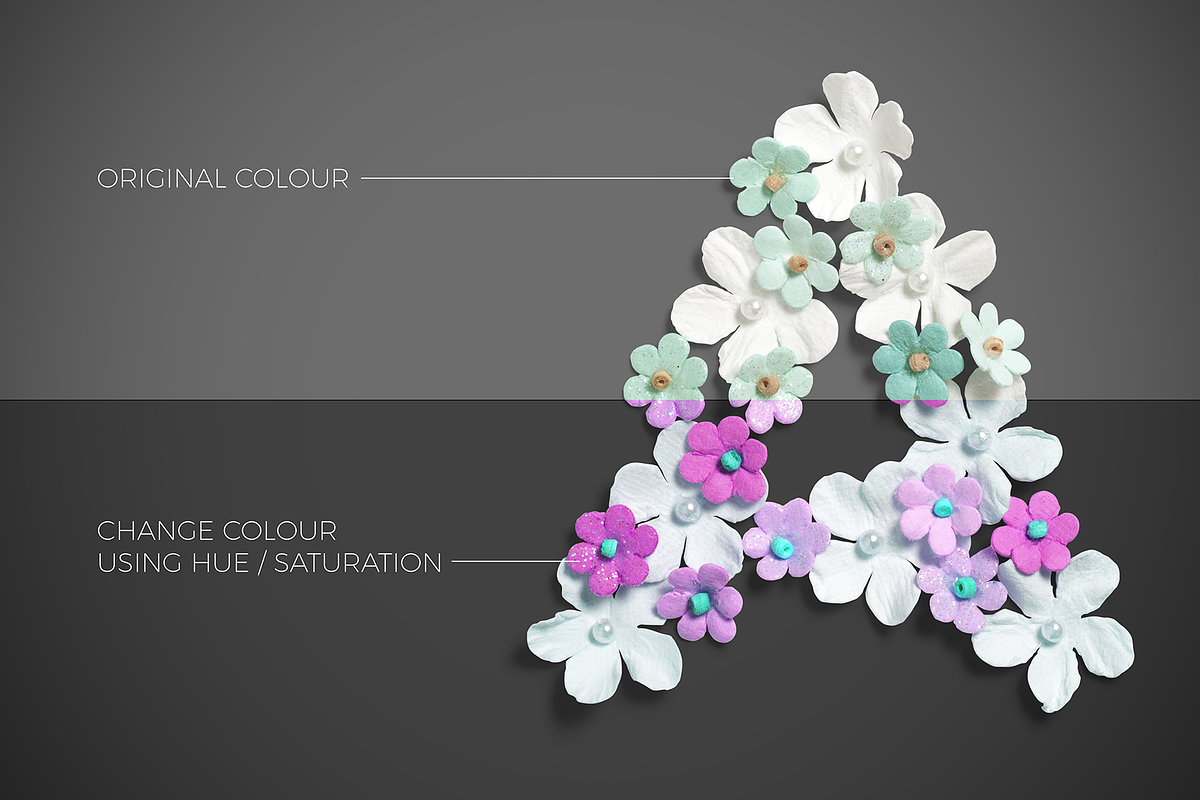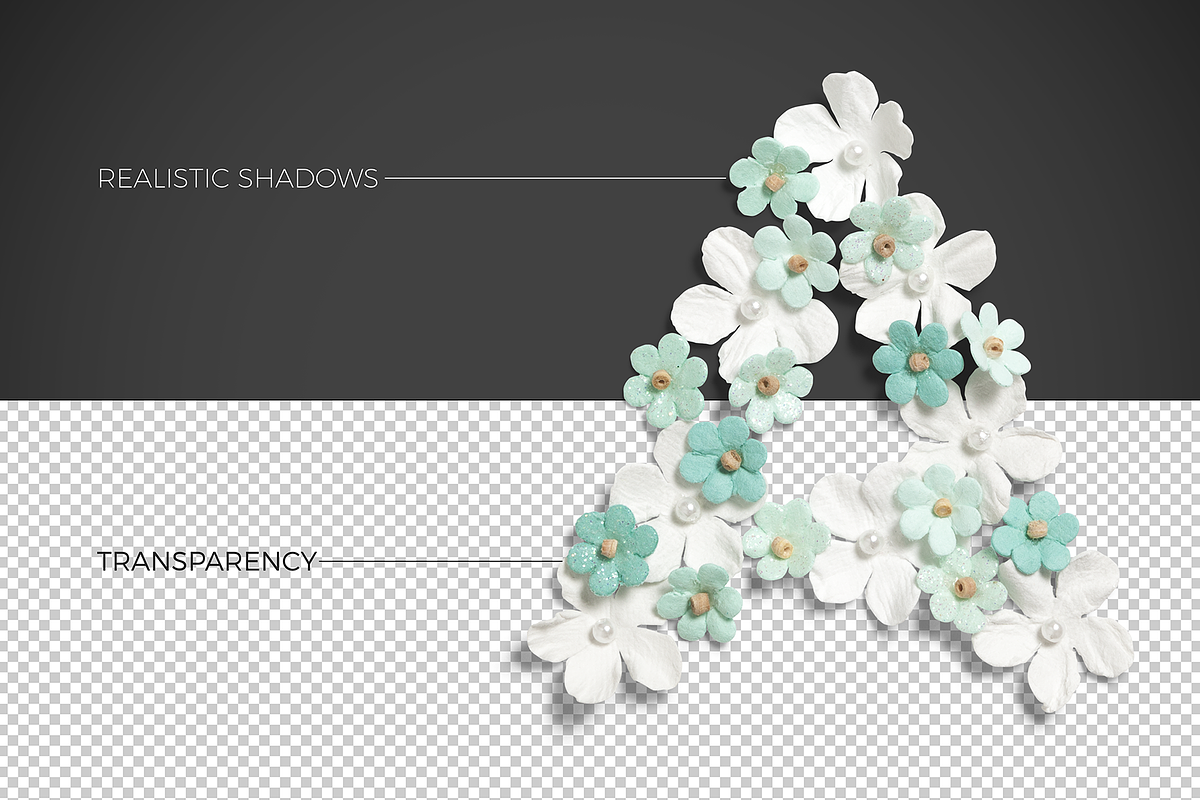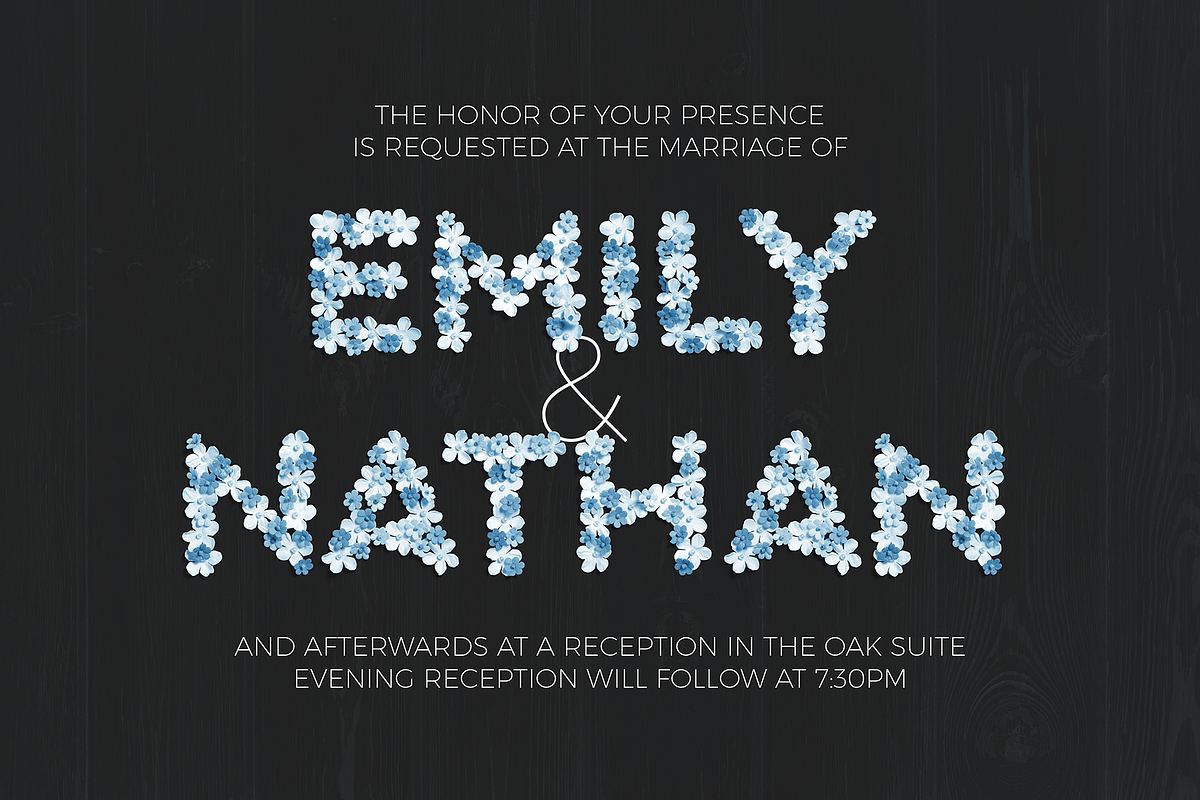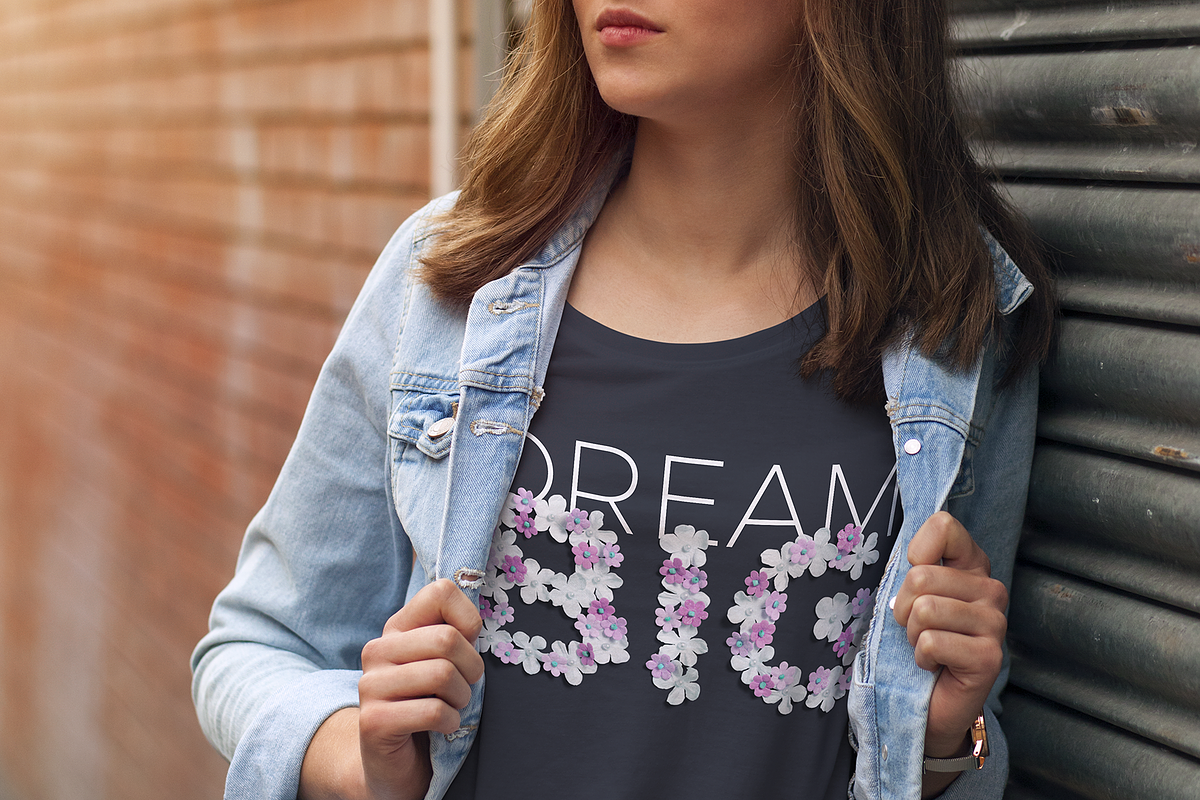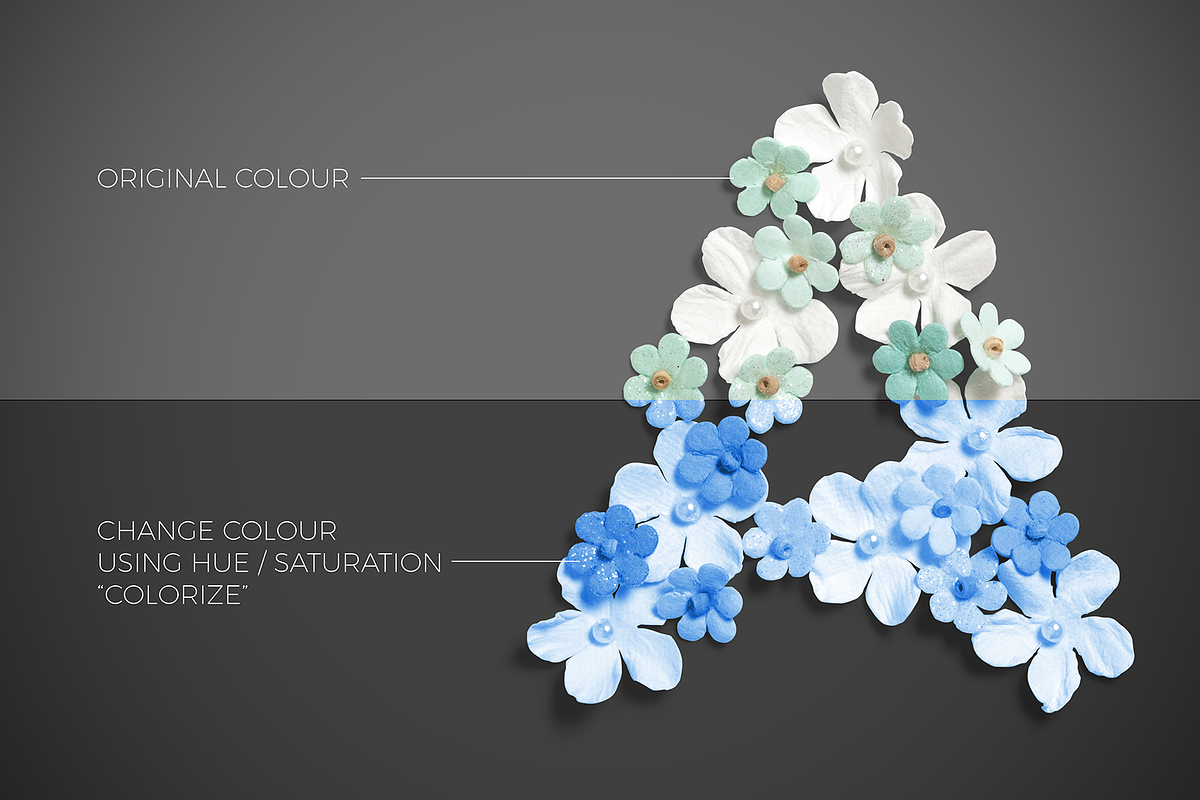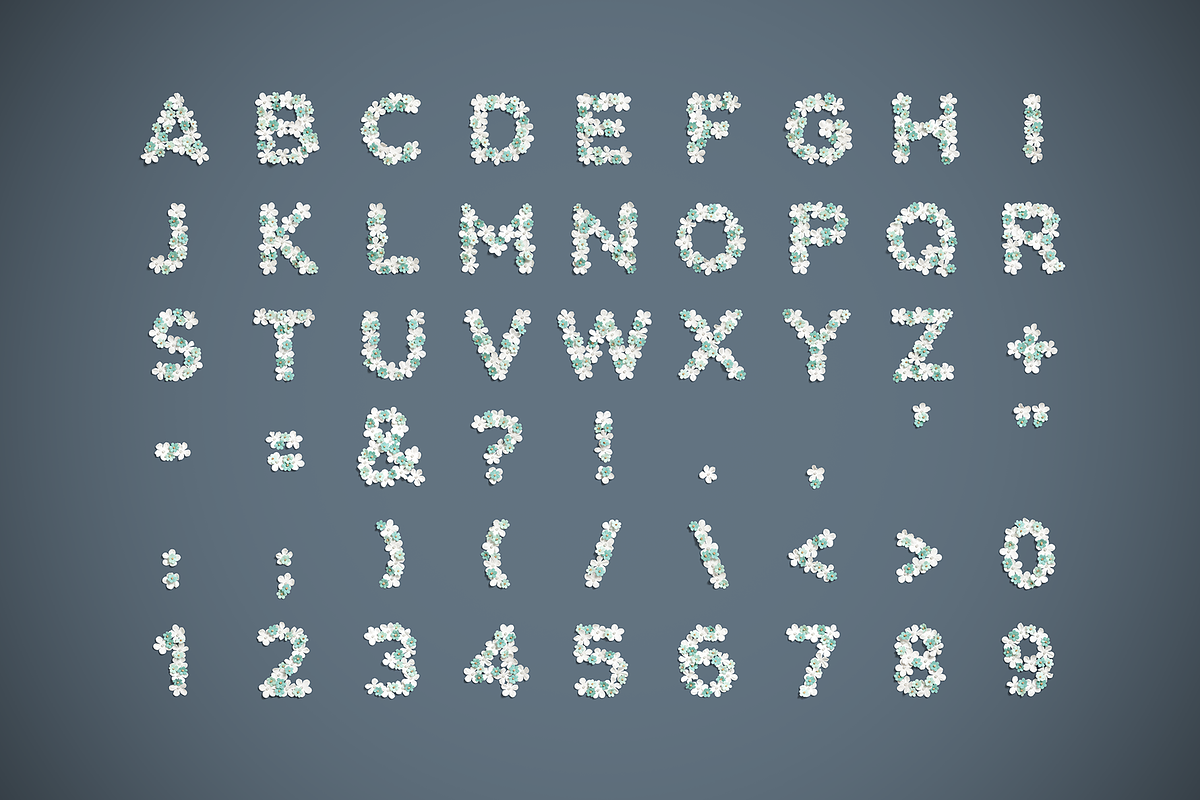
Aloa - Flower Font
Aloa is a decorative uppercase bitmap type flower font great mainly for headings. It will add a beautiful touch of nature to your designs. Aloa is great for wedding invitations, product design, illustrations, decorations, craft etc.
includes all letters, numbers and some punctuation.
perfect choice for print products such as wedding designs, wall art, weddings, labels, apparel, branding, packaging, quotes, business cards etc.